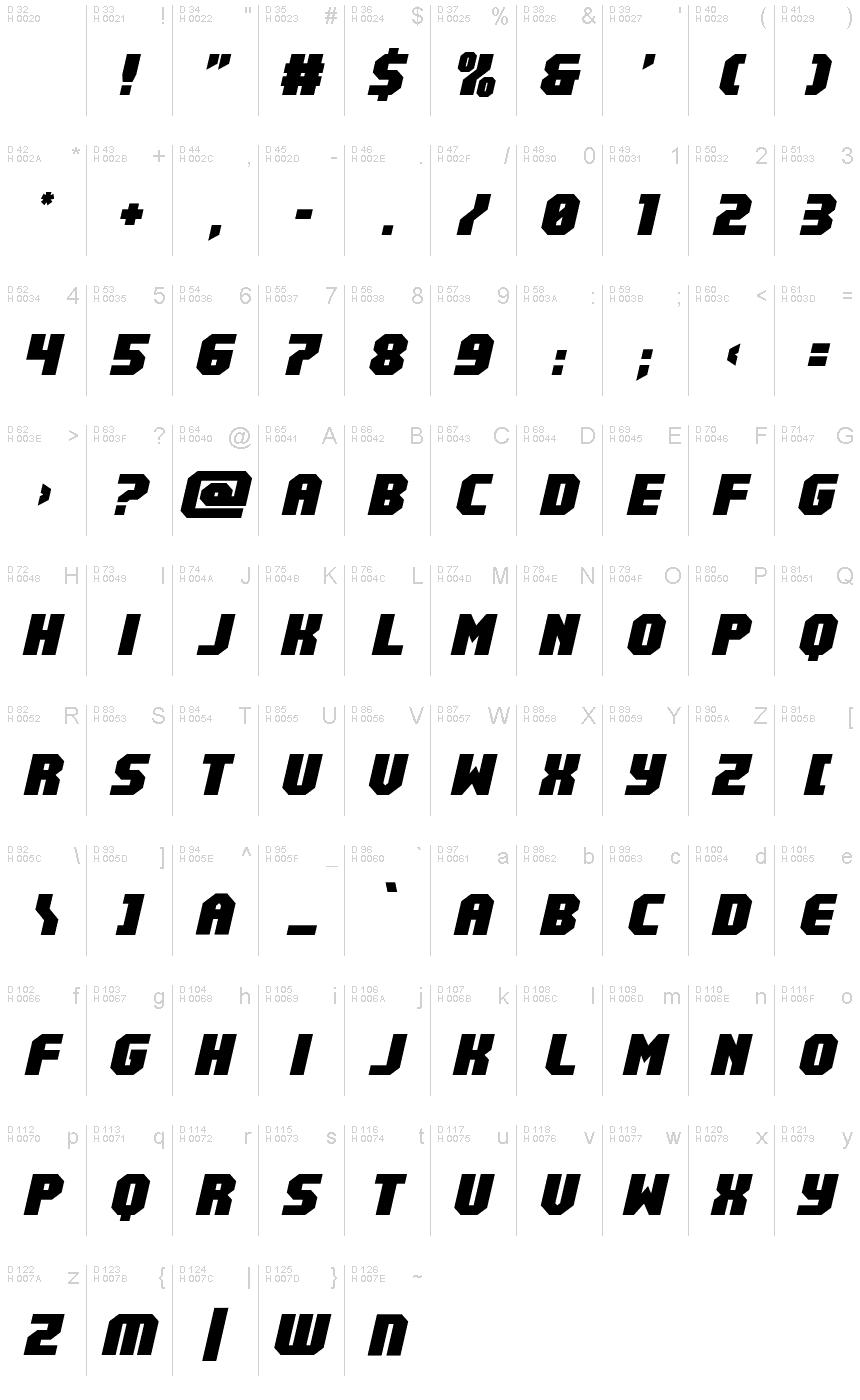
Metal Sentinel Semi-Italic
Introducing Metal Sentinel Semi-Italic, a display font designed by Daniel Zadorozny. This techno-style font is bold and eye-catching, perfect for projects that require a futuristic and edgy look. Whether you're designing a logo for a tech company or creating an album cover for an electronic music artist, Metal Sentinel Semi-Italic will make your work stand out. Its semi-italic style adds a unique touch to any project while maintaining readability. So why settle for boring fonts when you can make a bold statement with Metal Sentinel Semi-Italic? Try it out on your next creative project and watch it take on a whole new level of awesomeness!